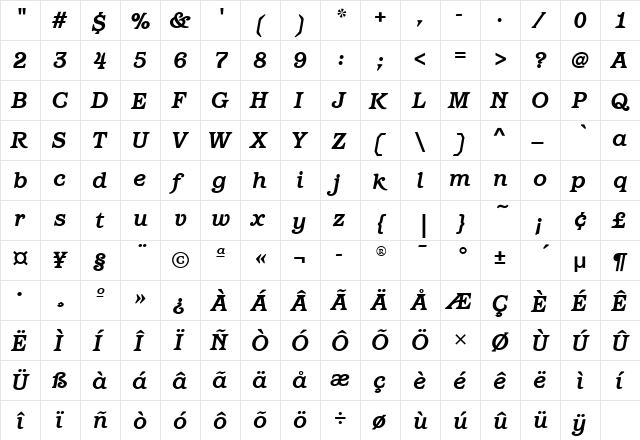
BarcelonaITC Bold Italic
Design Context for BarcelonaITC Typeface
BarcelonaITC offers clean, dependable letterforms without strong stylistic allegiance, making it a practical choice for designers who need flexibility. The slanted form adds forward momentum and visual energy. The heavy weight commands attention and anchors typographic hierarchies.
Pro Tip: Use BarcelonaITC for emphasis, pull quotes, and subheadings where its slanted energy can add rhythm to the layout.